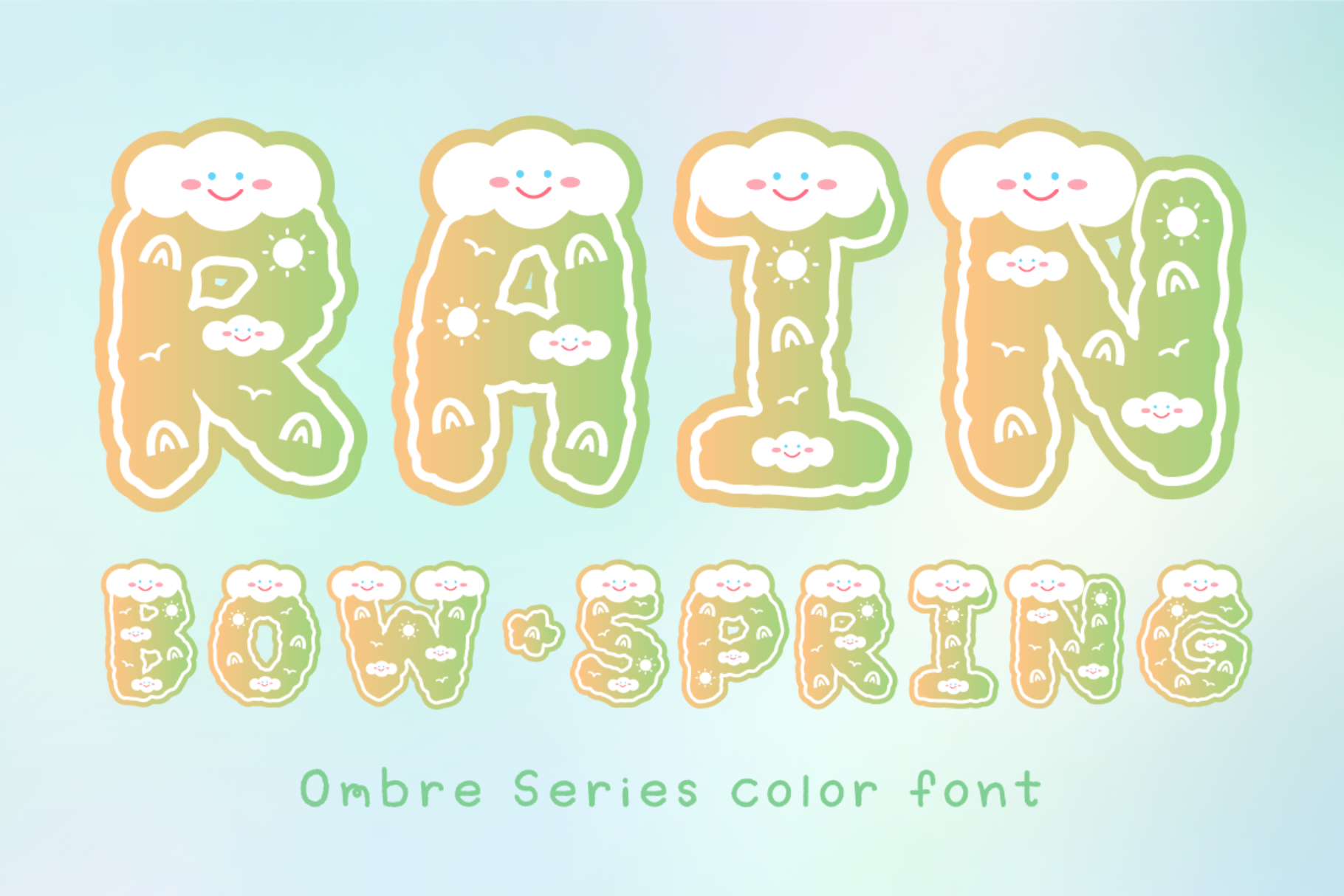
Rainbow Spring - SVG Color Cute Font
Rainbow Spring is a delightful and vibrant typeface that brings a cheerful and playful touch to any design project. The font features a unique and charming design, with each letter carefully crafted to resemble a spring-like shape. The letters are adorned with rainbow-colored gradients, giving them a dynamic and energetic appearance. The colors transition seamlessly from one hue to another, creating a mesmerizing visual effect.